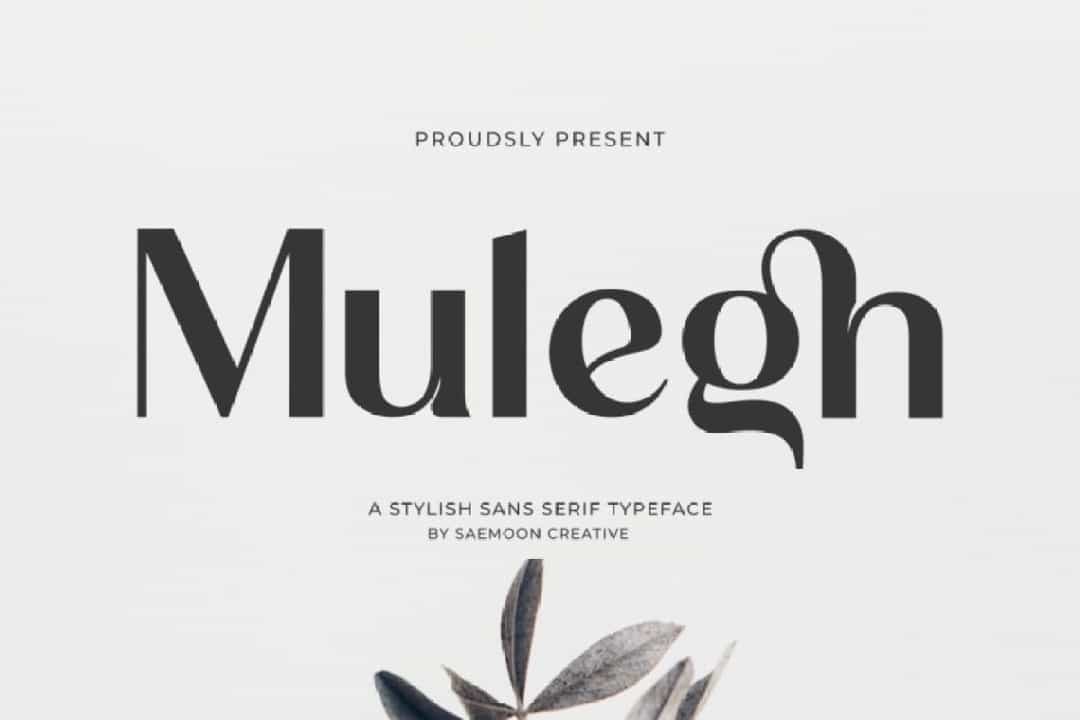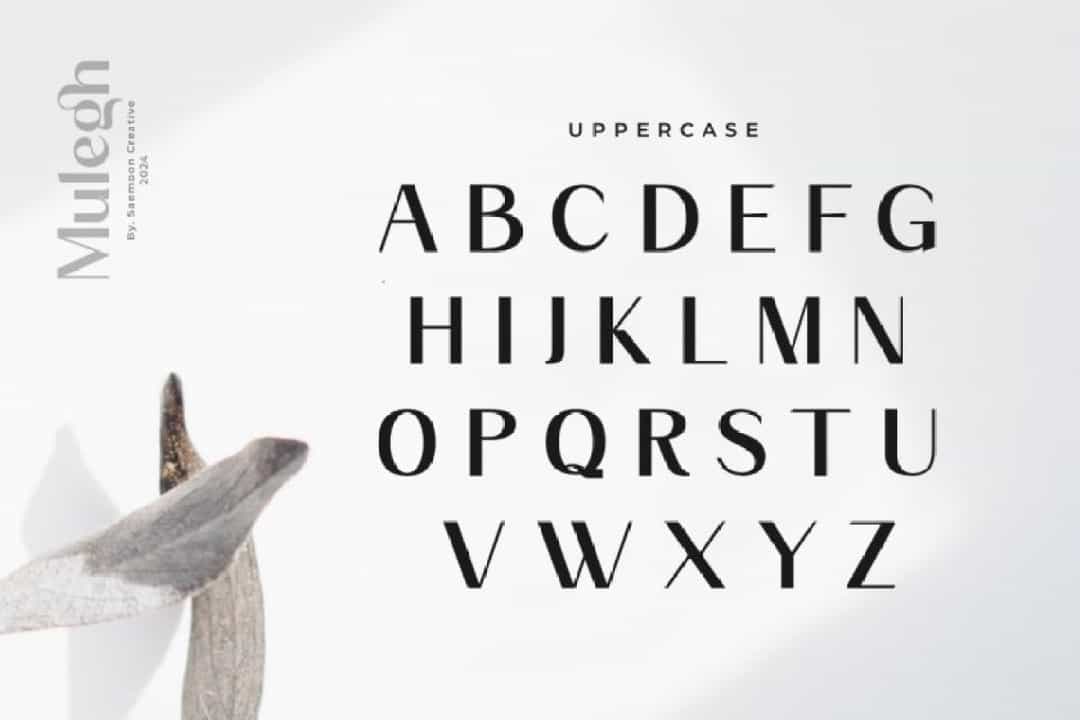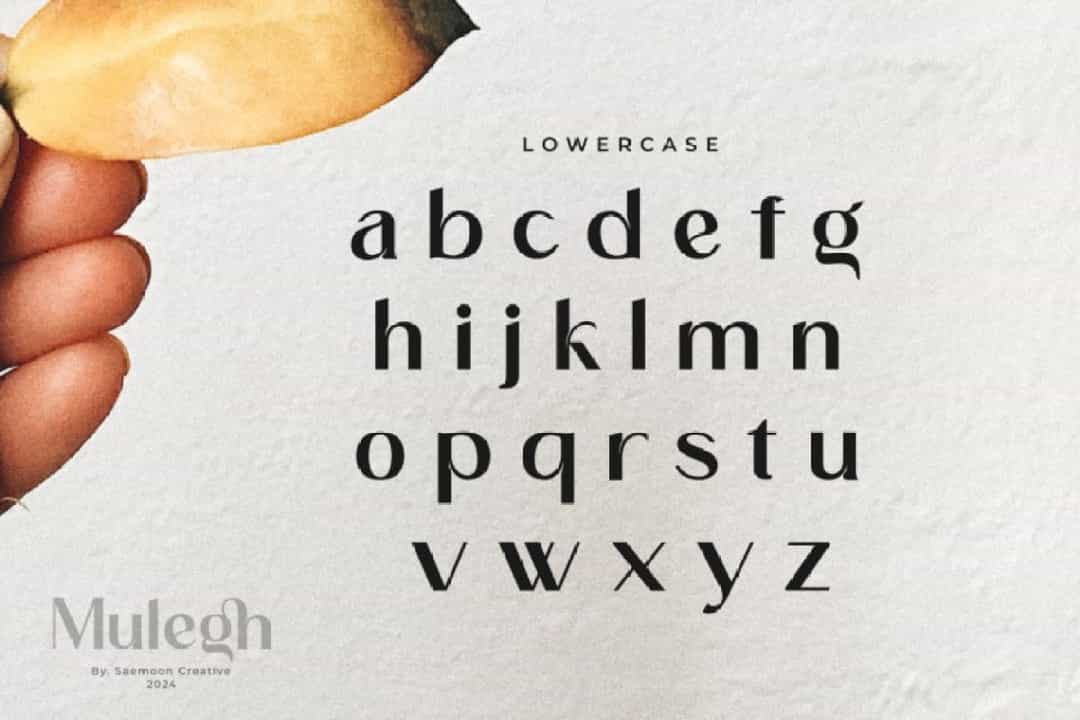
Mulegh is a fully-featured sans-serif font with distinct characteristics for every letter, creating an eye-catching style on layouts. Mulegh adds an air of luxury and simplicity in every design; created using ligature and alternative options which enable designers to craft stylish designs that exude elegance and class.